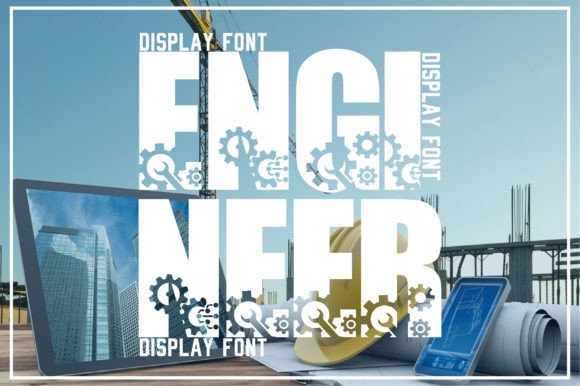
Introducing Engineer Font: A Thick Lettered and Unique Decorative Font
In the world of typography, fonts play a crucial role in conveying messages, expressing emotions, and creating visual identities. Among the numerous fonts available, Engineer Font stands out as a thick lettered and incredibly unique decorative font. Its distinctive style makes it an excellent choice for various design ideas, particularly those related to children’s games, science, space exploration, and school.
What is Engineer Font?
Engineer Font is a decorative font designed to make a bold statement. Its thick letters and unique style give it a distinctive look that sets it apart from other fonts. The font is perfect for designers looking to add a touch of personality to their projects. Whether you’re creating a logo, poster, or website, Engineer Font is sure to grab attention.
Characteristics of Engineer Font
So, what makes Engineer Font so special? Here are some of its key characteristics:
- Thick Lettered: Engineer Font features thick, bold letters that make it perfect for headlines, titles, and emphasis.
- Unique Style: The font’s unique style sets it apart from other decorative fonts, making it ideal for designers looking for something new and exciting.
- Versatile: Engineer Font can be used for a wide range of design projects, from children’s games and science-related designs to space exploration and school materials.
Uses of Engineer Font
Engineer Font is a versatile font that can be used for various design ideas. Here are some of the ways you can use Engineer Font:
Children’s Games
Engineer Font is perfect for children’s games, such as puzzles, quizzes, and activity sheets. Its bold and colorful style makes it easy to read and fun to use.
Science and Space Exploration
The font’s unique style makes it an excellent choice for science and space exploration designs. Use it to create posters, presentations, and websites that explore the wonders of the universe.
School Materials
Engineer Font is also suitable for school materials, such as textbooks, worksheets, and educational resources. Its clear and readable style makes it easy for students to understand and learn.
Benefits of Using Engineer Font
So, why should you use Engineer Font for your design projects? Here are some benefits:
- Attention-Grabbing: Engineer Font is designed to grab attention. Its bold and unique style makes it perfect for headlines, titles, and emphasis.
- Versatile: The font can be used for a wide range of design projects, from children’s games to science and space exploration.
- Easy to Read: Engineer Font is clear and readable, making it easy for audiences to understand and engage with your message.
Tips and Tricks for Using Engineer Font
Here are some tips and tricks for using Engineer Font:
- Use it Sparingly: Use Engineer Font sparingly to avoid overwhelming your design. Use it for headlines, titles, and emphasis.
- Experiment with Colors: Experiment with different colors to find the perfect match for your design.
- Pair it with Other Fonts: Pair Engineer Font with other fonts to create a unique and visually appealing design.
Engineer Font is a thick lettered and incredibly unique decorative font that can be used for various design ideas. Its bold and attention-grabbing style makes it perfect for children’s games, science and space exploration, and school materials. With its versatility, ease of use, and attention-grabbing style, Engineer Font is an excellent choice for designers looking to add a touch of personality to their projects.
What is Engineer Font?
Engineer Font is a decorative font designed to make a bold statement. Its thick letters and unique style give it a distinctive look that sets it apart from other fonts.
What are the uses of Engineer Font?
Engineer Font can be used for various design ideas, particularly those related to children’s games, science, space exploration, and school materials.